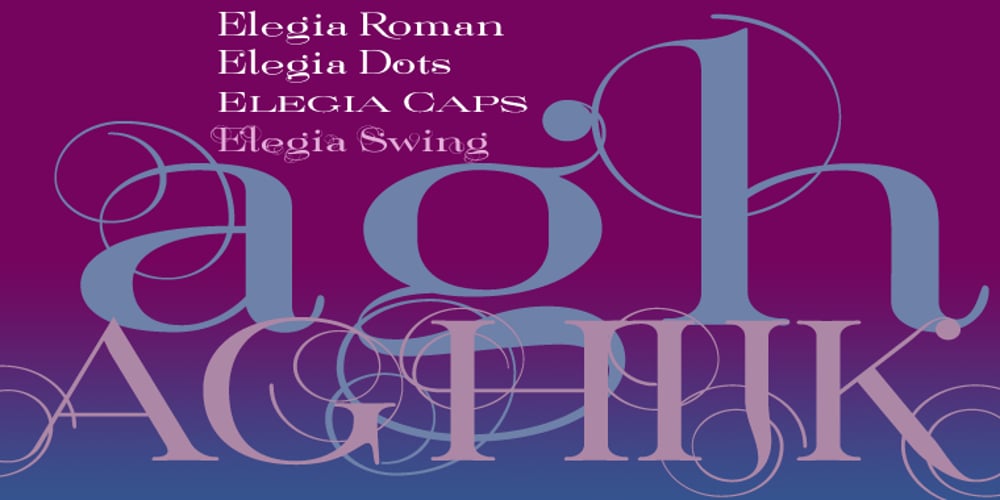
Elegia Font Family was designed by Gert Wiescher and published by Wiescher Design. Elegia contains 32 styles and family package options. I designed Elegia on a winter escape in beautiful and sunny Lisbon. That was a very elating experience, friendly people, a beautiful old town, perfect coffee and good simple cooking all that topped by extremely reasonable prices. Since I just have to design new typefaces all the time, I started and finished this elegant typeface. Each weight has 4 cuts, that can and should be mixed with each other. Oh one more thing, when in Lisbon, you will love those short little yellow streetcars (sometimes they are red, I don’t know why). Your cold-weather-avoiding-type-designer, Gert Wiescher